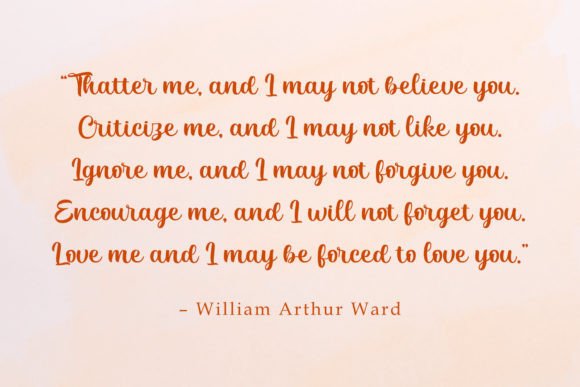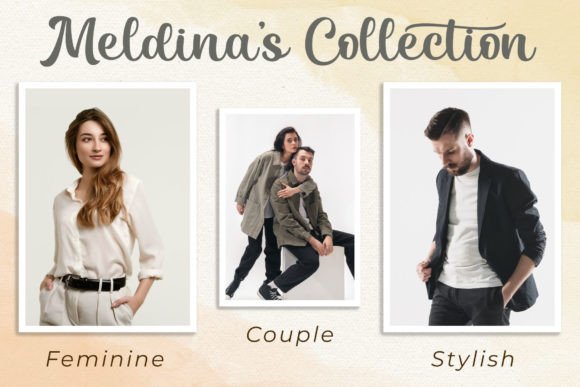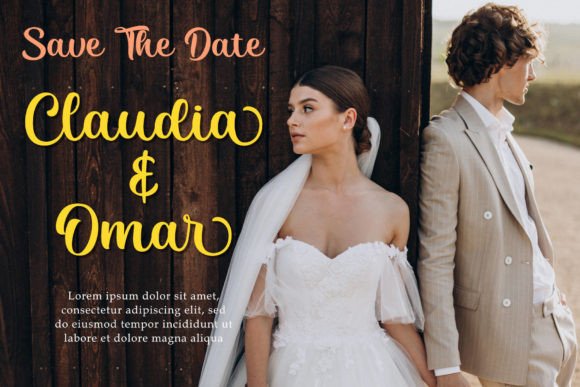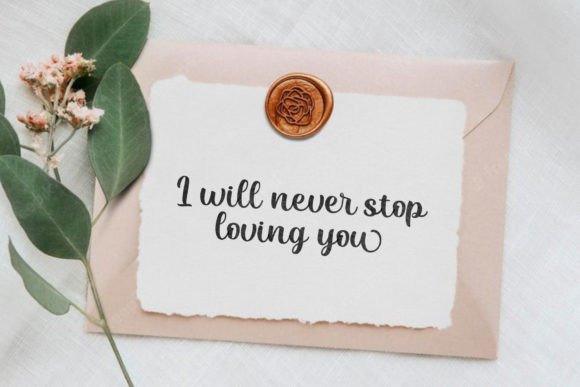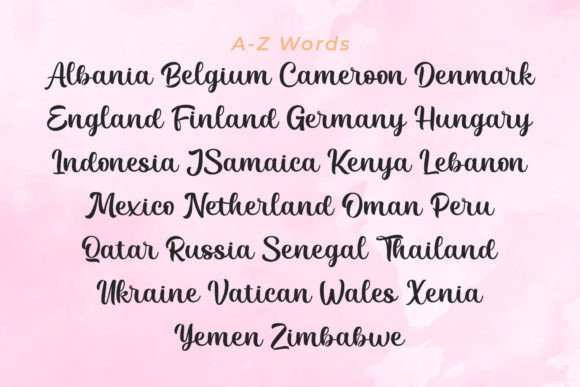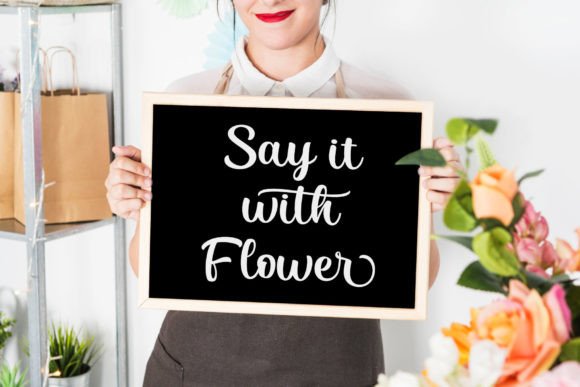
Unlock the Romantic Charm of Beltania Font
There’s something magical about creating a design that transports your audience to a whimsical world. Perhaps it’s the soft glow of a candlelit evening, or the gentle rustle of leaves on a forest path. Whatever the inspiration, the right font can make all the difference. And that’s where Beltania Font comes in – a romantic and sweet calligraphy typeface that adds a touch of elegance to any project.
Beltania Font is more than just a pretty face; it’s a tool designed to help you bring your vision to life. With its casual yet sophisticated feel, this font is perfect for designers who want to add a personal touch to their work. Plus, with PUA encoding, accessing all of the glyphs and swashes is a breeze – giving you the freedom to create your best designs ever.
Beltania Font Key Features
- Font Family: Beltania Font is a unique, hand-drawn font family with a mix of modern and traditional elements.
- Unique Characteristics: The font features distinctive, flowing lines and a unique letterform style that sets it apart from other fonts, making it perfect for creative and artistic projects.
Beltania Font Review
I recently had the chance to work with the Beltania font, and I must say it’s a unique addition to any design project. ✨ The font’s cursive script and playful feel make it perfect for adding a touch of whimsy to your designs.
- ✨ The font’s fluidity and connection to handwritten scripts make it ideal for invitations, wedding stationery, or any other project that requires a personal touch.
- ✨ Beltania’s large x-height and varied stroke widths add to its readability and visual interest, making it suitable for body text as well as headlines.
- ✨ The font’s range of weights and styles provides designers with a lot of flexibility and creative freedom.
- ⚠️ The font may not be the best choice for projects that require a professional or corporate feel, as its playful nature may come across as unprofessional.
- ⚠️ Beltania’s cursive script can be challenging to read in certain contexts, such as in small text sizes or when used extensively in body text.
Overall, I’m impressed with the Beltania font’s potential and versatility. While it may have some limitations, it’s a great choice for designers looking to add a touch of personality and whimsy to their projects. With careful selection and usage, Beltania can be a valuable addition to any design library.
The Beltania font is ideal for:
- Typography-based designs
- Titles and headings
- Posters and flyers
- Document and presentation headings